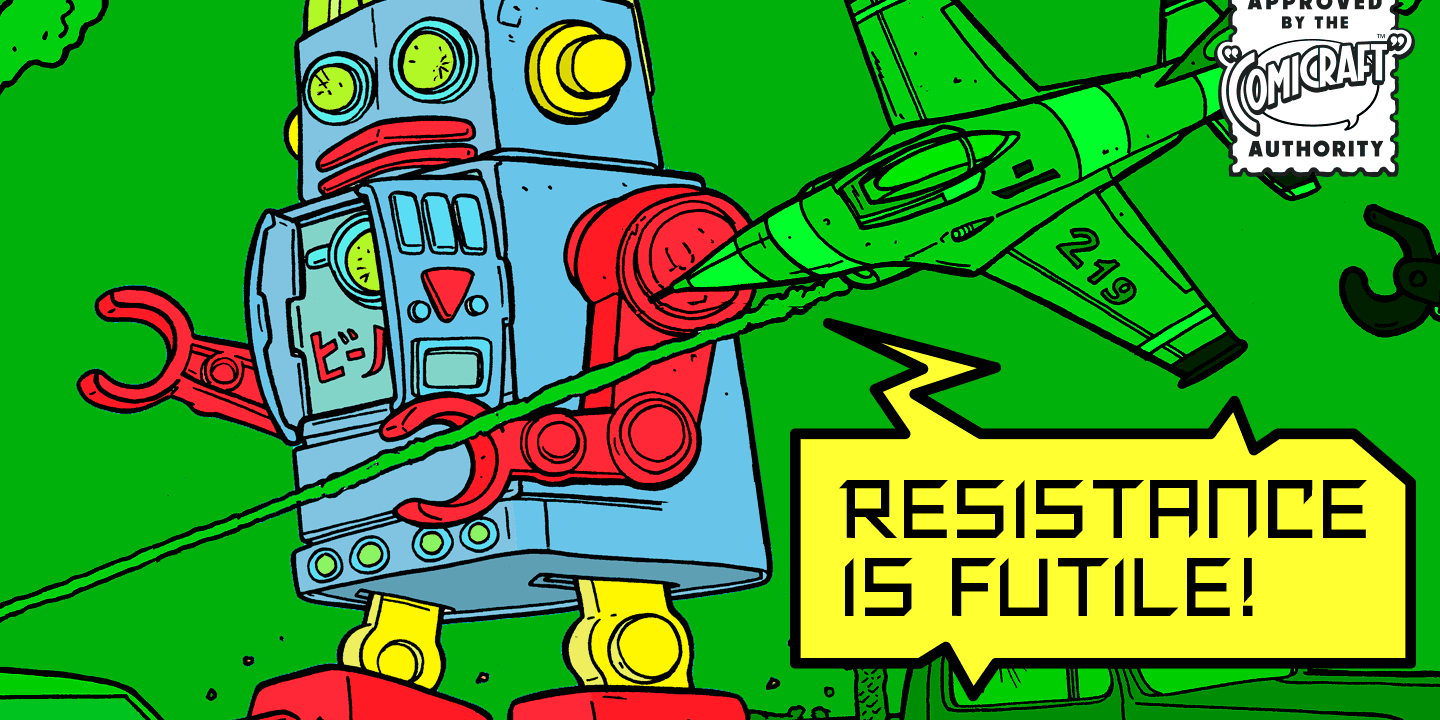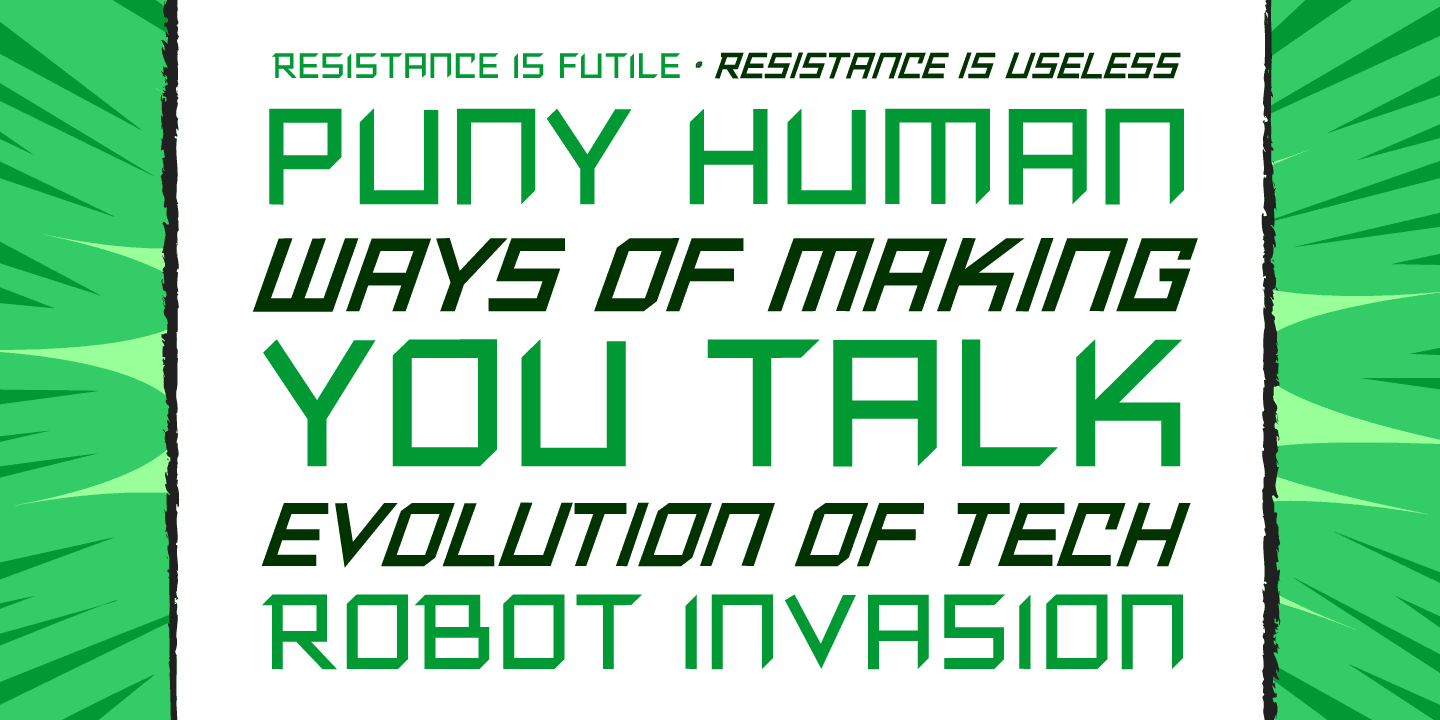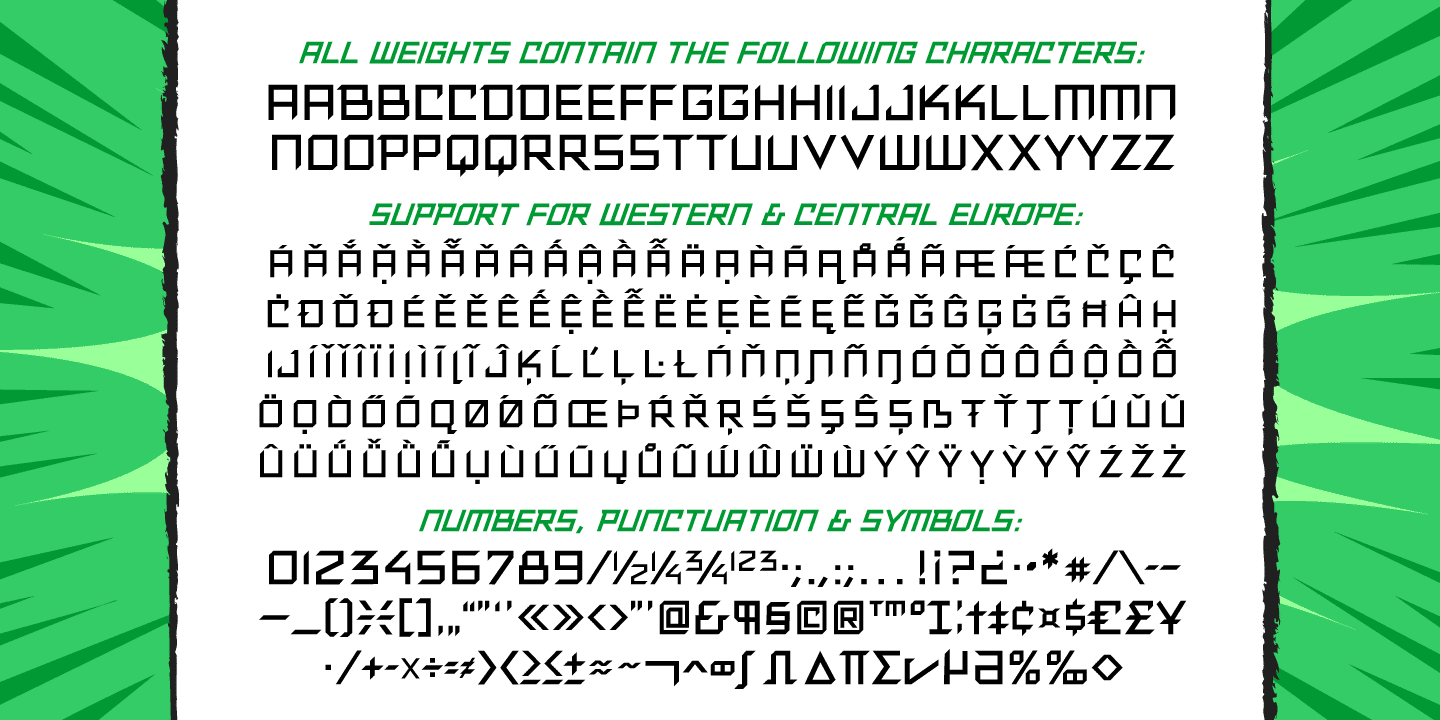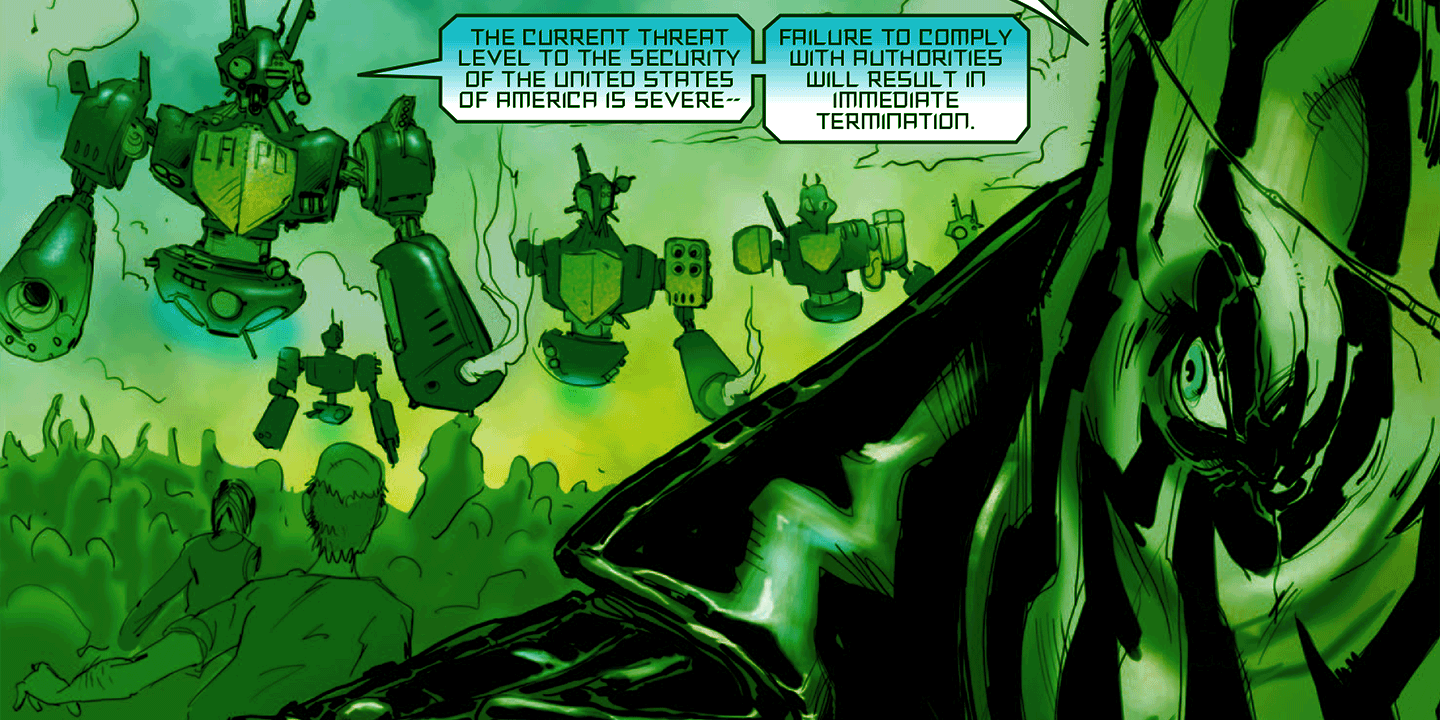
Resistance Is
Font Family by Comicraft Fonts
You will not move. You will not breathe. You will not think. You WILL buy this font. You are our prisoner. There is no escape... RESISTANCE IS FUTILE! Also Useless.
RESISTANCE IS…  was created for the voice of the evil robot Sentinels in X-MEN: AGE OF APOCALYPSE, and later used for the friendly robot in BATTLE CHASERS and robot police in ELEPHANTMEN. A font for all your robot needs!